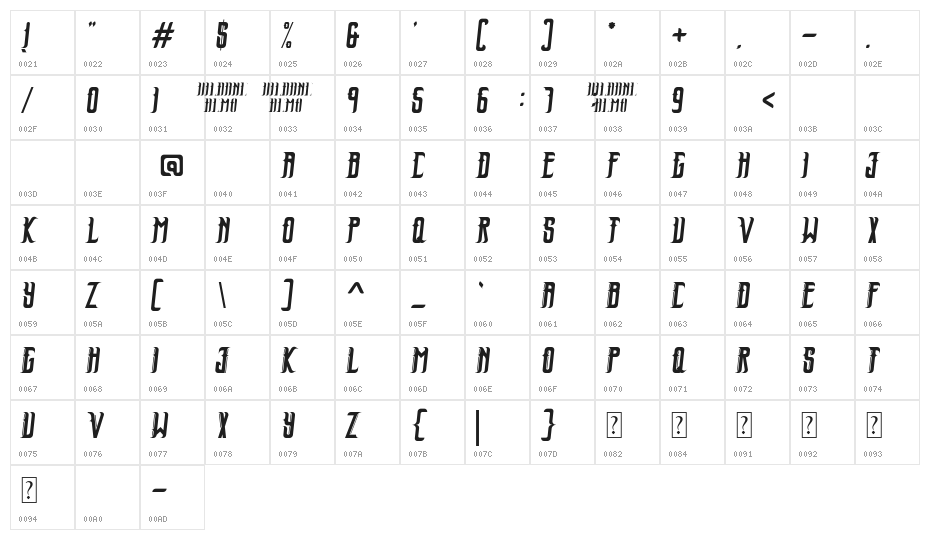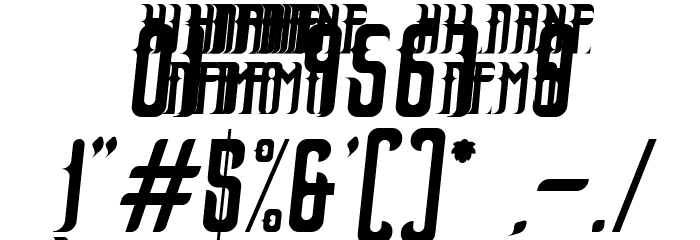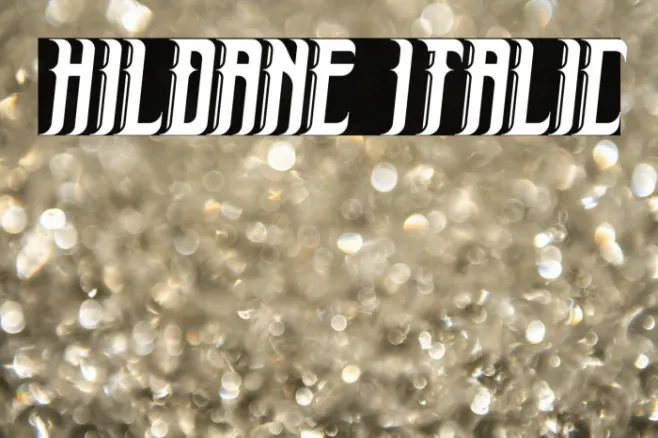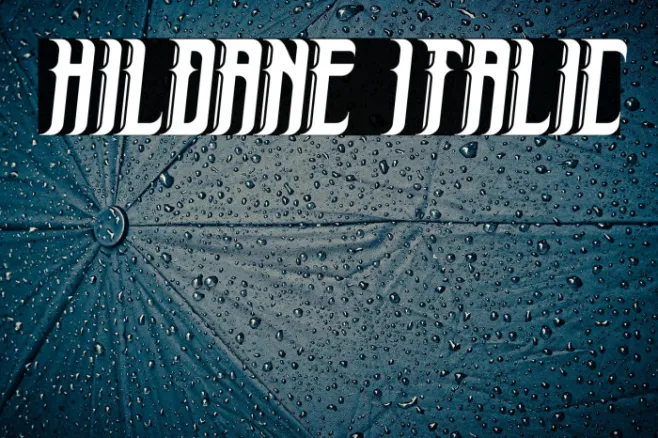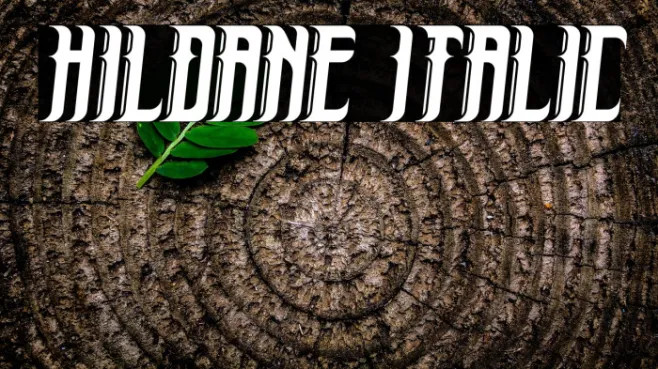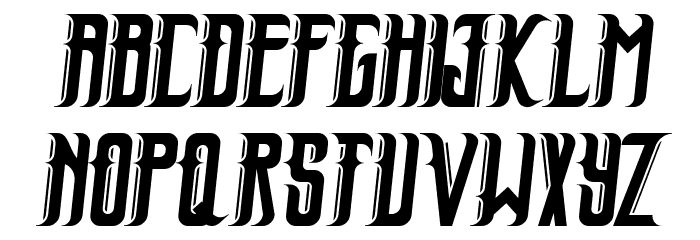
Hildane Italic Font
Hildane Italic Description
This font features a bold and dynamic design with a strong italic slant, giving it a sense of motion and energy. The characters are elongated with sharp, angular serifs that add a touch of aggression and modernity. The uppercase letters are particularly striking, with a tall and narrow form that commands attention. The lowercase letters maintain the same stylistic elements, ensuring consistency across the typeface. The numbers and special characters are equally bold, making them stand out in any design. This font is ideal for projects that require a strong, impactful presence.